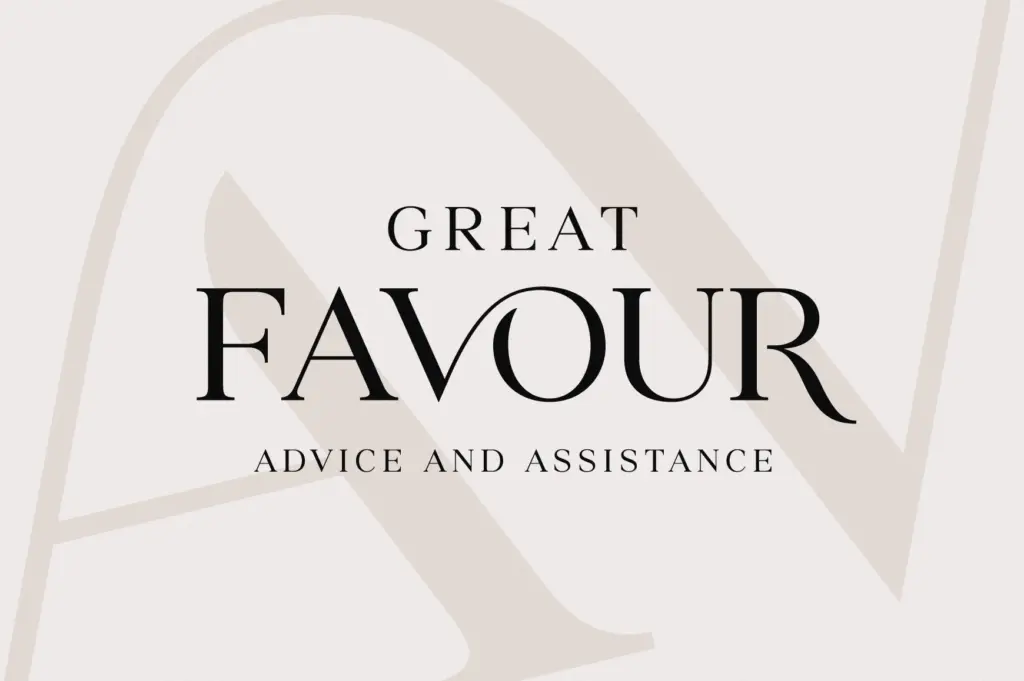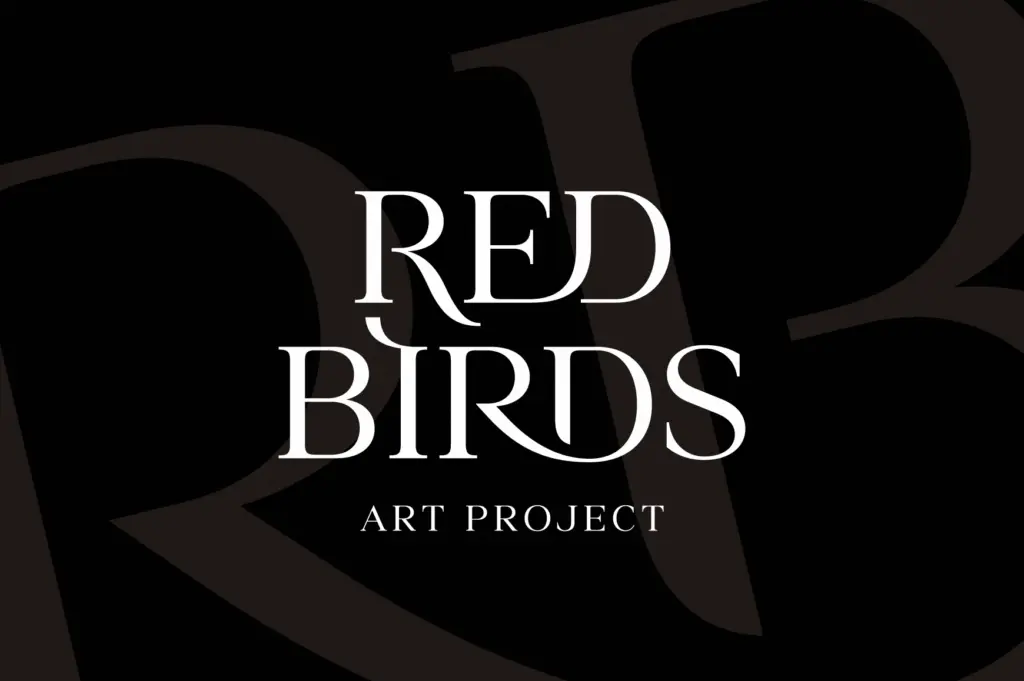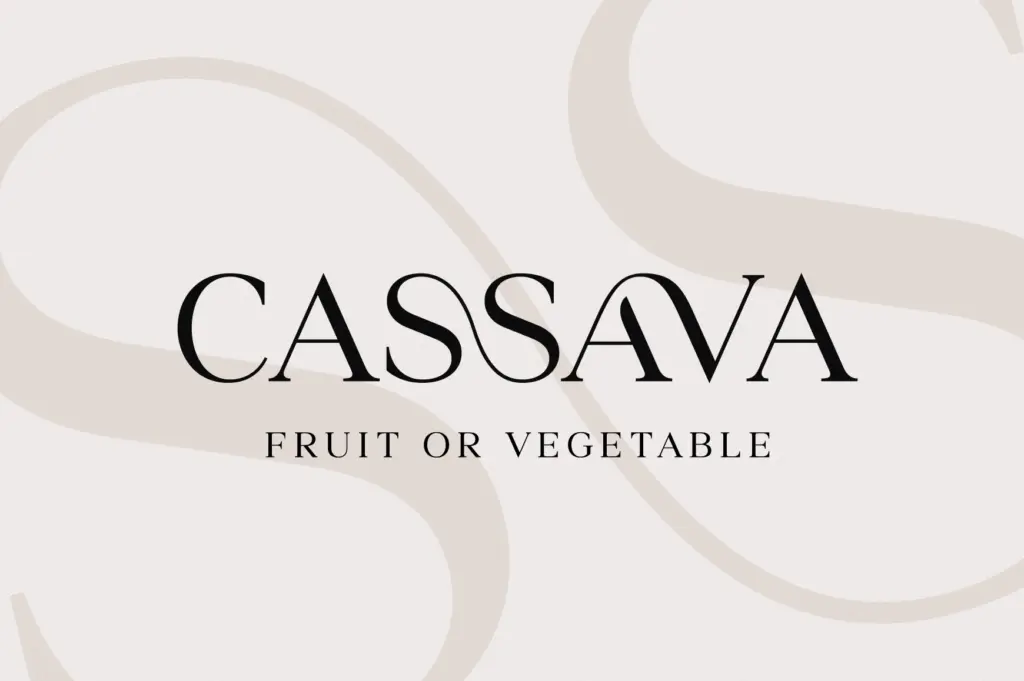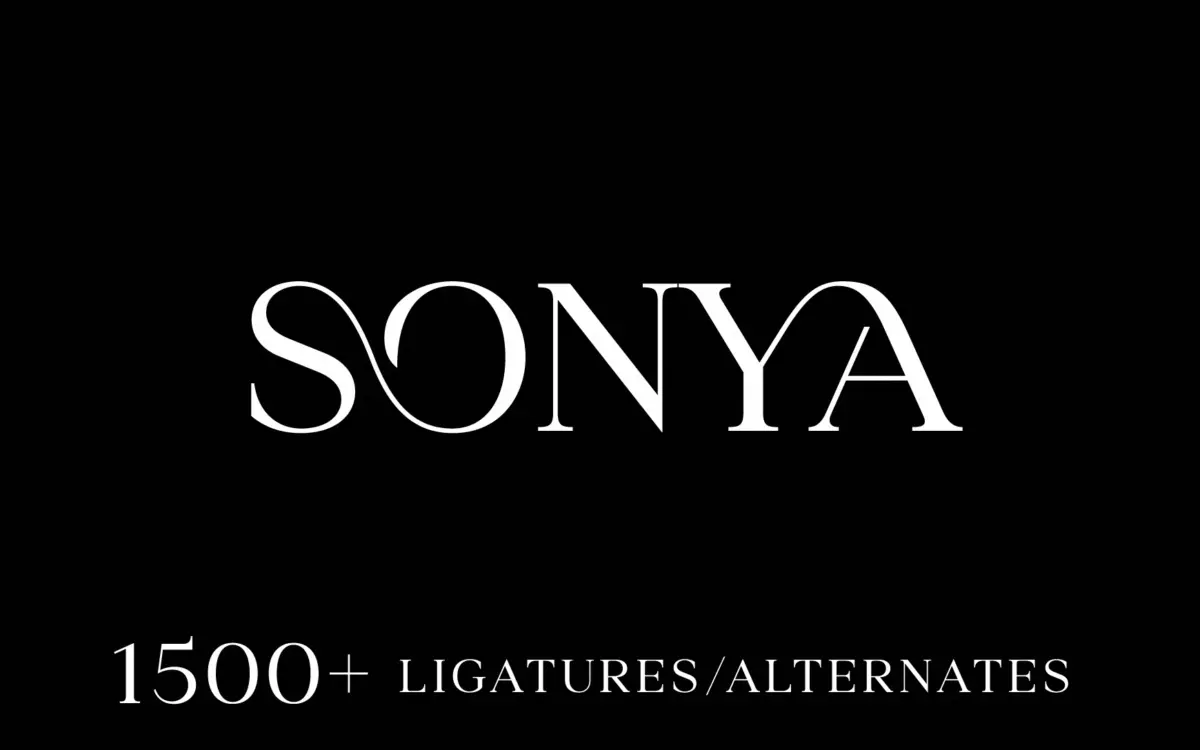
Sonya is a caps-only serif with the kind of formal, slightly theatrical bearing you associate with letterpress invitations and old perfume labels. The strokes carry moderate contrast, the serifs are sharp and bracketed just enough to feel drawn rather than mechanical, and the proportions run a touch condensed, which gives words a tall, columnar rhythm. It’s a font with a clear point of view: classic, a little ornamental, not interested in being neutral.
Because every glyph is a capital, the design leans hard into letter-by-letter variation rather than the usual upper/lowercase contrast a serif would use for texture. That’s where the alternates come in — up to three versions per letter, so a word set in Sonya rarely reads as a straight repeat of the same shapes. The effect is closer to hand-lettering or engraving than to a typeface built for paragraphs, which is exactly the point.
The set covers Latin uppercase with basic multilingual coverage, numerals, punctuation, and extra characters, plus the alternates already mentioned. The headline feature is the ligature system: up to seven ligatures per two-letter combination, accessed through Discretionary Ligatures in OpenType-aware software. That’s a genuinely deep set for a font pitched at monograms and short marks — most ligature fonts give you one or two options per pair and call it a day. Here you can audition several joins for the same letter combination and pick whichever sits best with the surrounding shapes.
The trade-off is that none of this is automatic in the way a script font’s connecting logic is automatic. You’re expected to go into the glyphs panel, browse alternates, and manually swap letters until a word looks right. That’s fine for a logotype you’re building once and refining by eye, less fine if you need a font that behaves predictably out of the box in a template or a CMS.
This is a font for names, not paragraphs. It’s built for wordmarks, monograms, packaging headers, wedding stationery, and any short line of type where the letters themselves are the design — a business name across three or four capitals, a couple’s initials on an invitation, a product name on a label. The alternates and ligatures give you enough raw material to make a two-word logotype feel bespoke without commissioning custom lettering.
It’s not a font for body copy, subheads at reading size, or anything that needs lowercase — there isn’t any. And because the alternates require manual selection in Illustrator, Photoshop, or similar, it’s not well suited to workflows where type gets set through a website builder or a plain word processor without OpenType feature access. Treat it as a lettering toolkit for one strong piece of type per project, not a working typeface for ongoing use across a brand system.
- Up to seven ligature variants per two-letter pair gives real room to customise a wordmark
- Three alternates per letter avoid the repetitive look many all-caps fonts have
- Sharp, bracketed serifs give it a classic, engraved character suited to formal branding
- No lowercase means it only ever functions as a display or logotype font
- Alternates and ligatures require manual glyph-panel work, not automatic substitution
Sonya is a well-drawn caps serif aimed squarely at logotypes, monograms, and short-form lettering, with an unusually deep ligature system for the category. It asks for manual glyph work rather than offering automatic behaviour, and it has no role beyond short display lines. Buy it for a wordmark or a monogram, not for a font family that carries a whole brand.